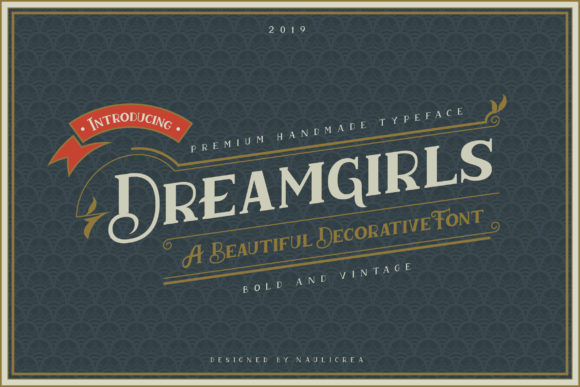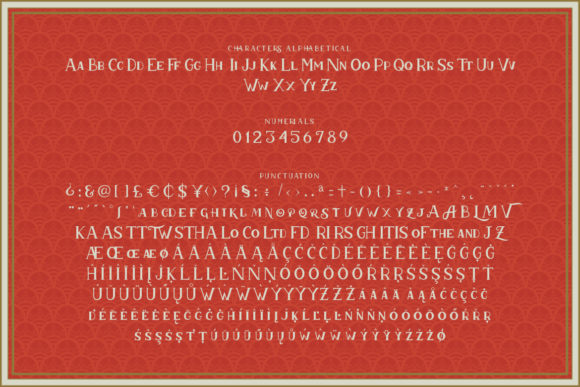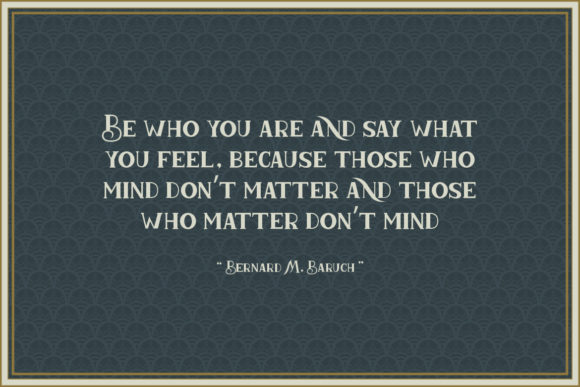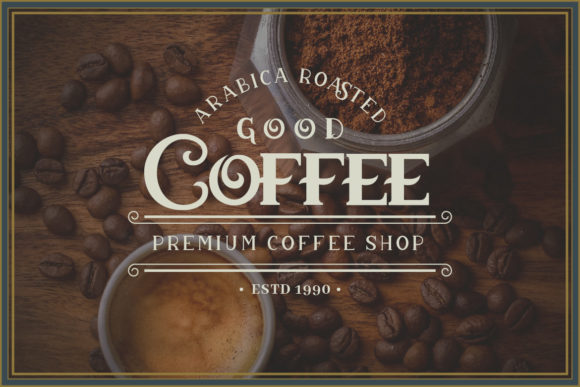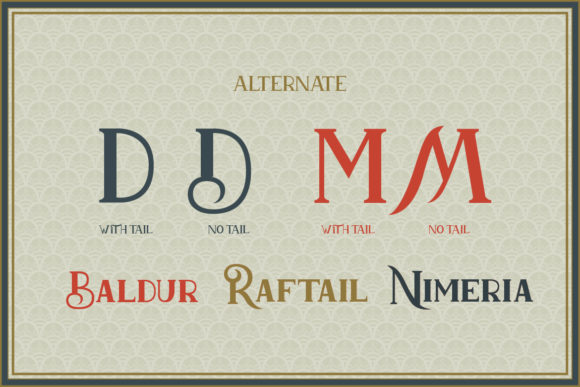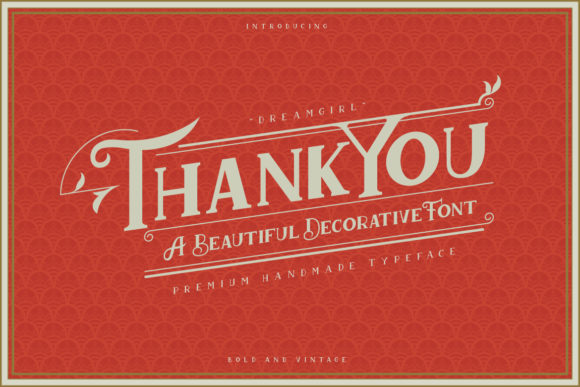
Dreamgirls Font: Elevate Your Designs with Elegance and Versatility
In the world of typography, fonts play a crucial role in conveying messages, expressing emotions, and creating lasting impressions. For designers, crafters, and anyone looking to add a touch of elegance to their projects, the Dreamgirls Font is a treasure trove of creative possibilities. This unique and interesting serif font is not just a tool for writing; it’s an instrument for crafting beautiful stationary art, eye-catching social media posts, and much more. Let’s dive into what makes Dreamgirls Font a must-have in your typographic arsenal.
The Charm of Dreamgirls Font
Dreamgirls Font stands out with its incredibly versatile style, making it suitable for a wide range of applications. Whether you’re designing wedding invitations, crafting engaging social media content, or creating bespoke stationery, this font adds a touch of sophistication and charm. Its serif design lends a classic feel, while its unique flair ensures it remains contemporary and eye-catching.
Applications of Dreamgirls Font
The versatility of Dreamgirls Font is one of its most compelling attributes. Here are some ways you can use this beautiful font:
- Stationary Art: Create stunning letters, invitations, and cards that stand out with their elegant and unique style.
- Social Media Posts: Elevate your social media content with eye-catching posts that grab attention and convey your message with style.
- Digital Marketing Materials: Use Dreamgirls Font to add a touch of class to your brochures, flyers, and other marketing materials.
- Crafting Projects: Whether you’re into scrapbooking, journaling, or any other form of crafting, Dreamgirls Font can add a beautiful textual element to your projects.
Why Choose Dreamgirls Font?
With so many fonts available, why choose Dreamgirls Font? Here are a few reasons:
- Unique Style: Its distinctive serif design and elegant swashes make it a standout choice for anyone looking to add a touch of sophistication to their designs.
- Versatility: From digital content to print materials, Dreamgirls Font adapts seamlessly to various mediums and applications.
Tips for Using Dreamgirls Font
To make the most of Dreamgirls Font, consider the following tips:
- Experiment with Sizes: Play around with different font sizes to see how Dreamgirls Font looks in various contexts.
- Combine with Other Fonts: Don’t be afraid to pair Dreamgirls Font with other fonts for a unique and striking effect.
- Utilize Swashes: Make the most of the glyphs and swashes available to add a personal touch to your designs.
Dreamgirls Font is more than just a font; it’s a tool for creative expression. Its unique style, versatility, and ease of use make it an excellent choice for designers and crafters looking to elevate their projects. Whether you’re creating beautiful stationary art, eye-catching social media posts, or anything in between, Dreamgirls Font is sure to inspire and enhance your designs. So, fall in love with its incredibly versatile style and let your creativity shine!